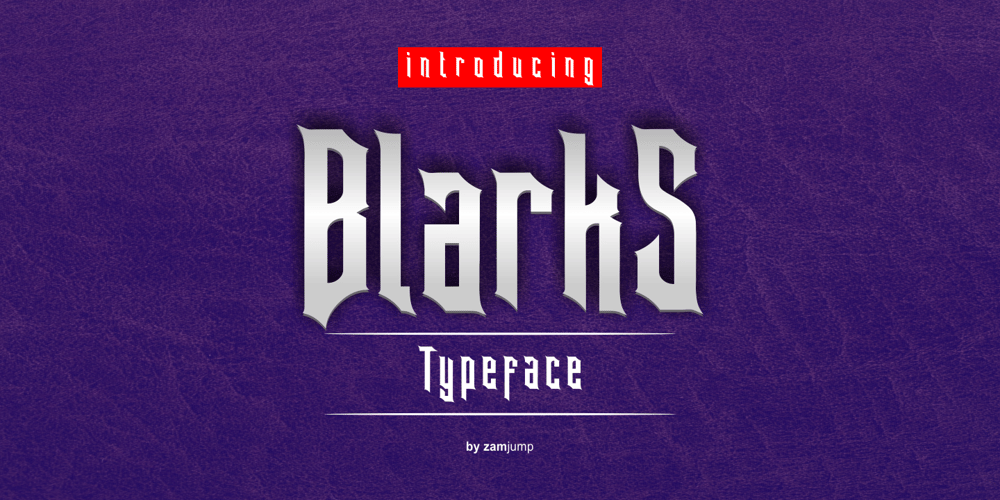
Blarks Font Family was designed by Zamjump and published by Zamjump. Blarks contains 1 styles and family package options. Blarks is a unique font with a strong character. The inspiration for making this font is from several e-sport and typography logos that I have seen on various websites, where I found ideas to make fonts that could be applied without having to use another application to change it. Blarks is ideal for logos, event titles, quotes, product packaging, clothing, or anything that requires a turbo typographic boost. It is perfect for titles and logos. Type any a-z using this font, and you will get a unique font arrangement and strong character.